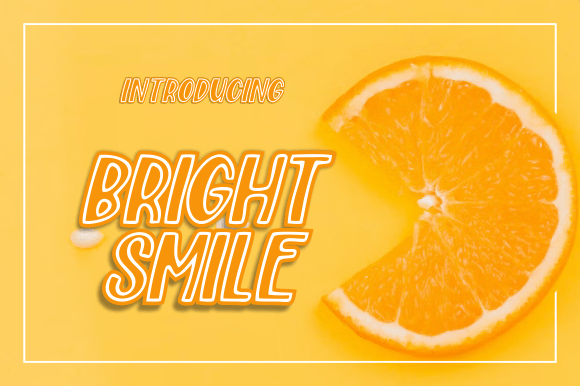
The Bright Smile Font: A Game-Changer for Your Designs
Have you ever been in the middle of a design project, and suddenly, you just can’t seem to find the right font? I know I have. It was a sunny Saturday morning when I was working on a fun project for a client’s children’s party invitation. I had the perfect concept, the colors were picked, and the graphics were all set, but something was missing – the right font. That’s when I stumbled upon the Bright Smile font, and let me tell you, it was love at first sight! 💕
First Impressions: A Modern yet Whimsical Style
Bright Smile is a cool and unique font that has a modern yet whimsical style, and it will undoubtedly immerse your designs into a fun and bright world. Its quirky and playful vibe makes it perfect for designs that need a bit of personality. Whether you’re a designer, crafter, or creative hobbyist, this font is sure to bring a smile to your face and make your designs pop!
• ✨ Unique and modern design that stands out from the crowd
• 💃 Perfect for designs that need a playful and whimsical touch
• 🎉 Great for titles, headings, and short paragraphs of text
• 🤔 May not be the best choice for body text or long paragraphs, as it can be a bit too playful
• ⚠️ Limited availability of special characters and glyphs, but still offers a range of OpenType features
The Designer Inspiration Behind Bright Smile
The story behind Bright Smile is one of creativity and inspiration. The designer, who wishes to remain anonymous, was inspired by the bright and colorful world of children’s books. They wanted to create a font that would bring a smile to people’s faces and add a touch of whimsy to their designs. And so, Bright Smile was born!
Q: What type of designs is Bright Smile best suited for?
A: Bright Smile is perfect for designs that need a playful and whimsical touch, such as children’s party invitations, greeting cards, and social media graphics.